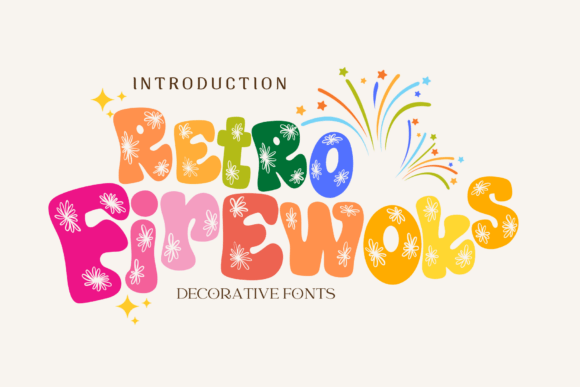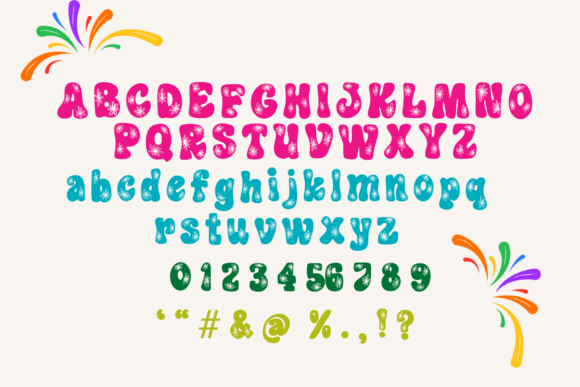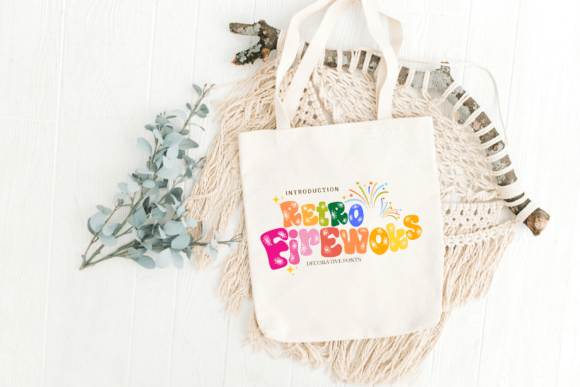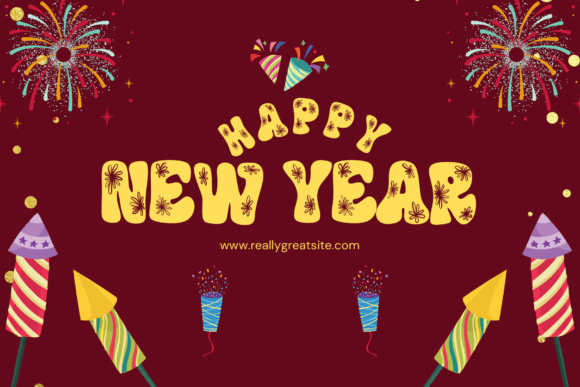
Retro Firewoks Font
About the Retro Firewoks Font
Let us introduce you to Retro Firewoks Font, where timeless design meets modern craftsmanship. Retro Fireworks is a vibrant and explosive decorative font that captures the joy of celebration. With floral accents and a nostalgic retro flair, this font is great for festive branding, holiday posters, and party graphics.
Retro Fireworks excels in headline treatments, short bursts of text on packaging, and eye-catching posters. Its decorative nature makes it unsuitable for body copy or extended reading; legibility suffers at smaller sizes. Avoid using it in user interfaces or situations demanding high readability.
The font’s personality is bold and playful, suited to brands focusing on fun, nostalgia, or celebratory occasions. Think vintage-inspired products, confectionery, or event promotions. It pairs well with clean sans-serif fonts like Open Sans for contrast or a more restrained serif like Merriweather for a classic, balanced feel.
Consider pairing it with a simple script font for a touch of elegance, provided the script remains understated to avoid visual clutter. Avoid pairing it with other highly decorative fonts, which would create an overwhelming visual experience.
Retro Firewoks Font Usage Examples
Retro Firewoks Font Example